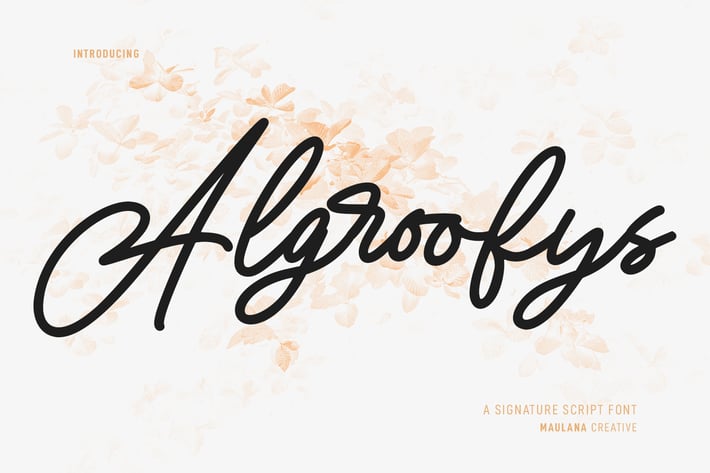
Algroofys Signature Script Font
Algroofys is a modern signature script font. With consist mono-line stroke, fun character. To give you an extra creative work. Algroofys font support multilingual more than 100+ language. This font is good for logo design, Social media, Movie Titles, Books Titles, a short text even a long text letter and good for your secondary text font with sans or serif. Make a stunning work with Algroofys font.